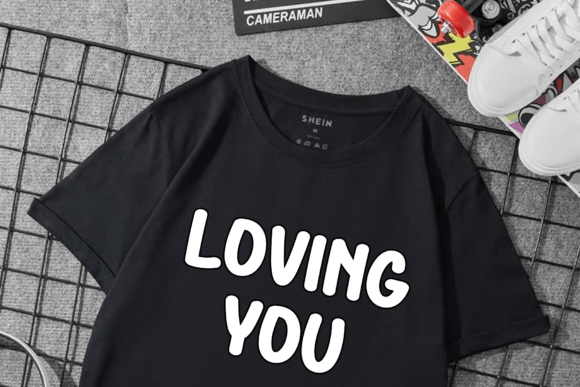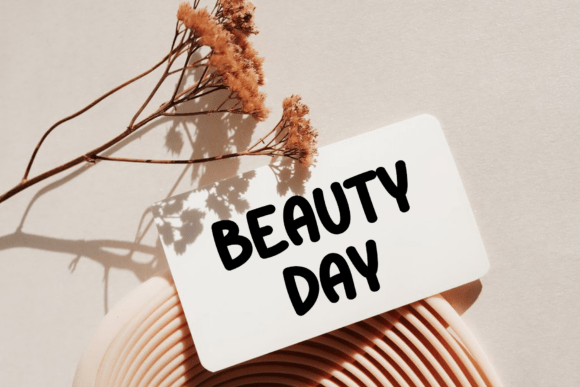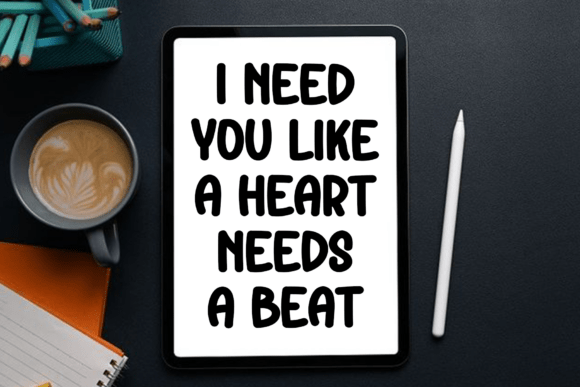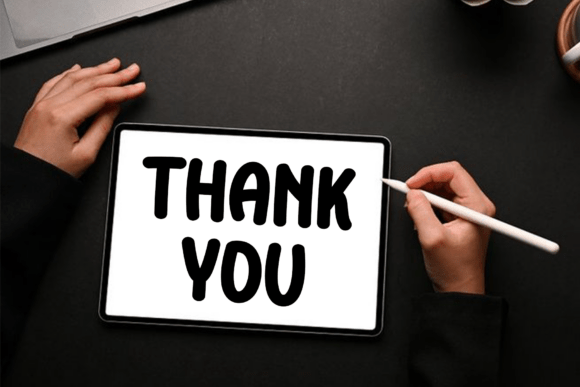
Introducing Benefit Christmas Font: The Perfect Blend of Simplicity and Warmth
Are you looking for a font that can add a touch of warmth and friendliness to your designs? Look no further than Benefit Christmas Font, a casual and neat display font that combines simplicity with a friendly, approachable vibe. In this article, we’ll explore the features and benefits of Benefit Christmas Font, and why it’s the perfect choice for designers and crafters looking to elevate their branding, headlines, packaging, and digital content.
Clean Lines, Balanced Letterforms, and Subtle Rounded Edges
Benefit Christmas Font boasts clean lines, balanced letterforms, and subtle rounded edges that capture the essence of modern handwritten typography with a polished finish. The font’s design is characterized by its simplicity, making it easy to read and understand. The clean lines and balanced letterforms ensure that the text is clear and legible, while the subtle rounded edges add a touch of warmth and friendliness.
Ideal for Branding, Headlines, Packaging, and Digital Content
Benefit Christmas Font is an incredibly versatile font that can be used in a variety of design applications. Whether you’re working on branding, headlines, packaging, or digital content, this font is sure to add a warm and inviting touch to your designs. Its crisp structure and versatile style make it perfect for creating eye-catching titles, headings, and descriptions that will engage and captivate your audience.
Modern Handwritten Typography with a Polished Finish
Benefit Christmas Font is a perfect example of modern handwritten typography with a polished finish. The font’s design is inspired by traditional handwritten scripts, but with a modern twist that makes it perfect for digital applications. The polished finish gives the font a professional look and feel, making it suitable for use in a wide range of design projects.
Adding Clarity and Charm to Your Designs
Benefit Christmas Font delivers clarity and charm in equal measure, making it the perfect choice for designers and crafters looking to create engaging and effective designs. The font’s clean lines and balanced letterforms ensure that the text is clear and legible, while its subtle rounded edges and polished finish add a touch of charm and personality.
Features and Benefits of Benefit Christmas Font
- Clean lines and balanced letterforms for clear and legible text
- Subtle rounded edges for a warm and inviting touch
- Versatile style suitable for a wide range of design applications
- Polished finish for a professional look and feel
- Easy to read and understand for effective communication
Why Choose Benefit Christmas Font?
There are many fonts available that claim to offer a unique and stylish solution for designers and crafters. However, Benefit Christmas Font stands out from the crowd due to its unique combination of simplicity, warmth, and versatility. Here are just a few reasons why you should choose Benefit Christmas Font for your next design project:
- Unique and stylish design that will elevate your designs
- Highly versatile and suitable for a wide range of design applications
- Easy to use and customize for a seamless design experience
- Professional look and feel that will impress your audience
In conclusion, Benefit Christmas Font is a casual and neat display font that combines simplicity with a friendly, approachable vibe. Its clean lines, balanced letterforms, and subtle rounded edges make it perfect for adding a warm and inviting touch to your designs. With its versatile style and polished finish, Benefit Christmas Font is the perfect choice for designers and crafters looking to elevate their branding, headlines, packaging, and digital content. So why wait? Try Benefit Christmas Font today and see the difference it can make in your designs!